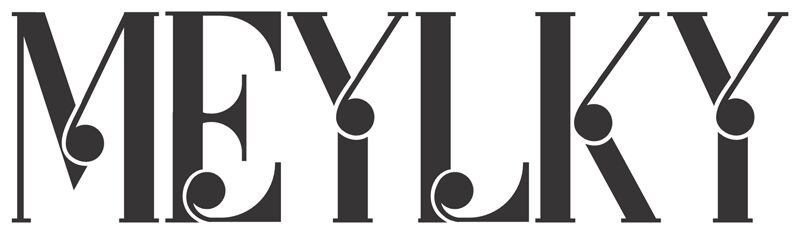
MEYLKY
Meylky font is a retro display typeface designed by Sudarman Mulka. It showcases an elegant and modern design with condensed width and sophisticated artistic flourishes. With high-contrast serif letters, the font presents a culture-focused style that is both dramatic and impactful, evident by its eye-catching accentuation when used within short or longer body text segments.
This free display font delivers value within a consistent use for classic web development projects, advertising jobs that involve creating outstanding poster designs for events like dance festivals or fashion shows. Other notable uses include editorial layouts such as newspaper headings, magazine titles, story openers in books, flyer headlines, CD covers typography work like titles/logos; typographic ad-riddled restaurant menus are also in the range of acceptable applicability areas along with graphic design projects on social media platforms.